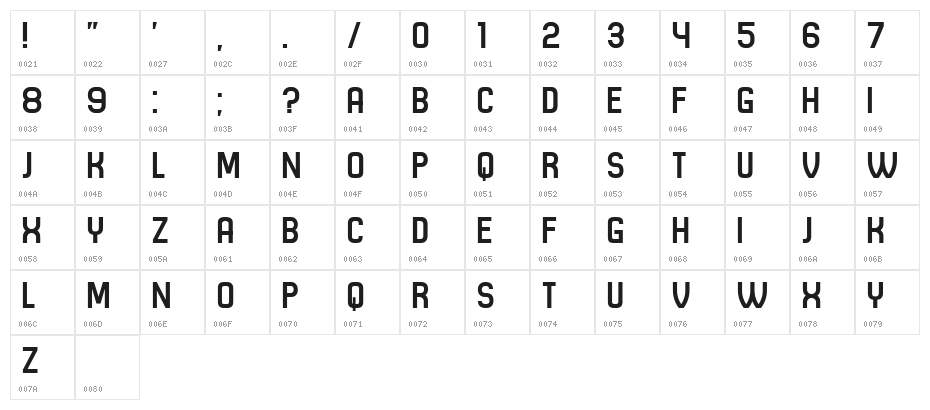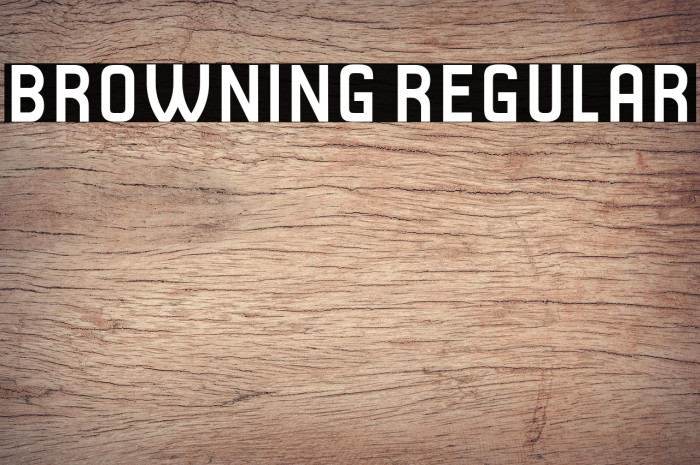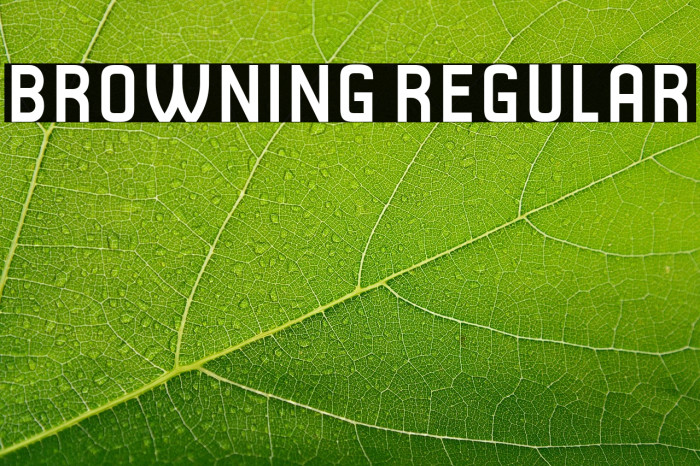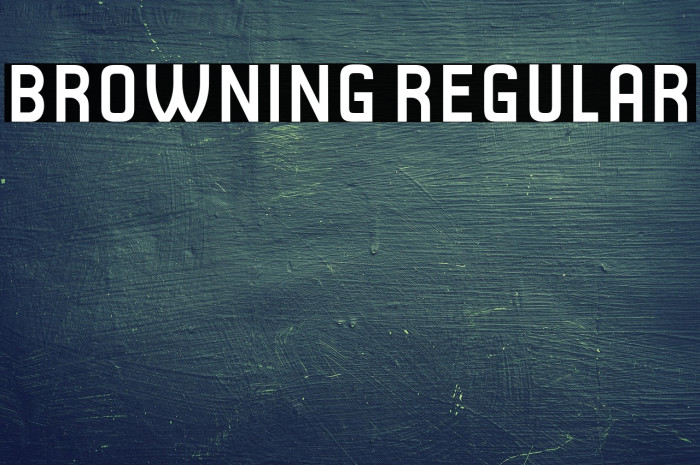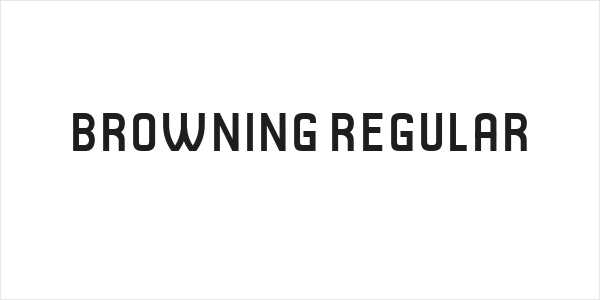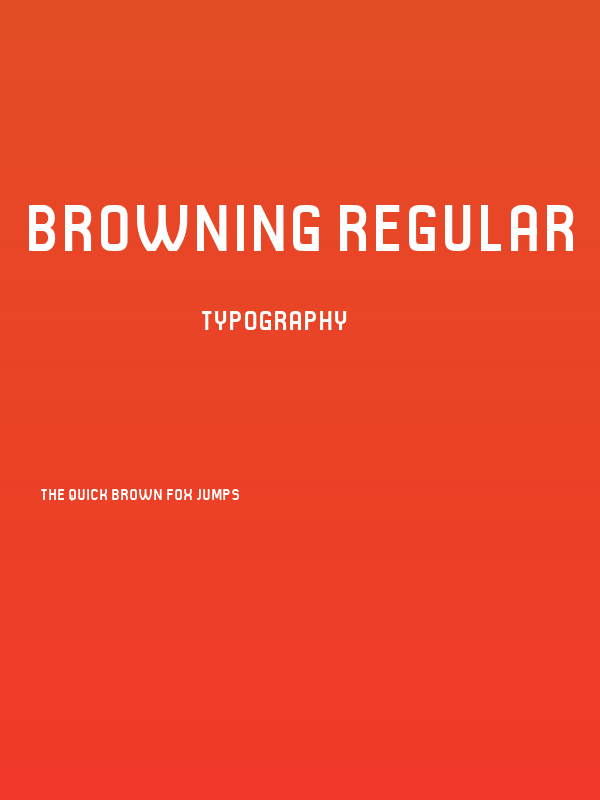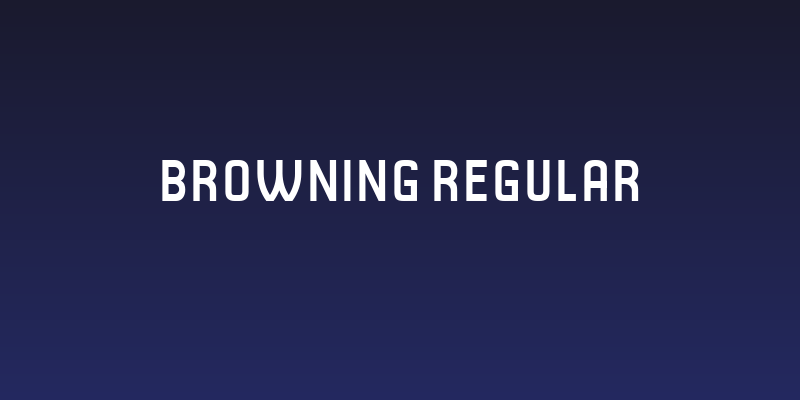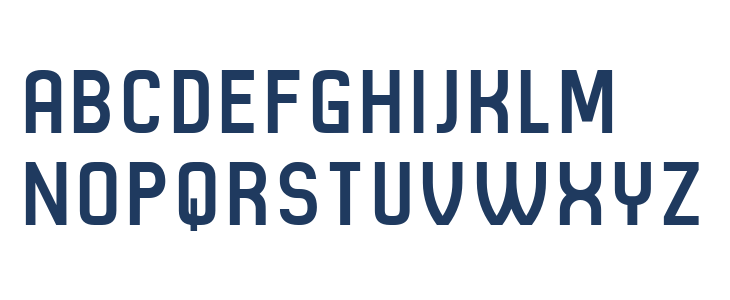
Browning Regular Font
Browning Regular Description
This font features a clean and modern aesthetic with a geometric structure. The characters are uniformly designed with a consistent stroke width, giving it a bold and assertive appearance. The uppercase and lowercase letters maintain a strong alignment, while the numerals are clear and legible. Special characters are distinct and well-integrated, making the font versatile for various uses. The overall design is minimalistic yet impactful, suitable for both digital and print media.
| Proposed Projects | Ideal for branding, advertising, headlines, and digital interfaces where clarity and modernity are essential. |